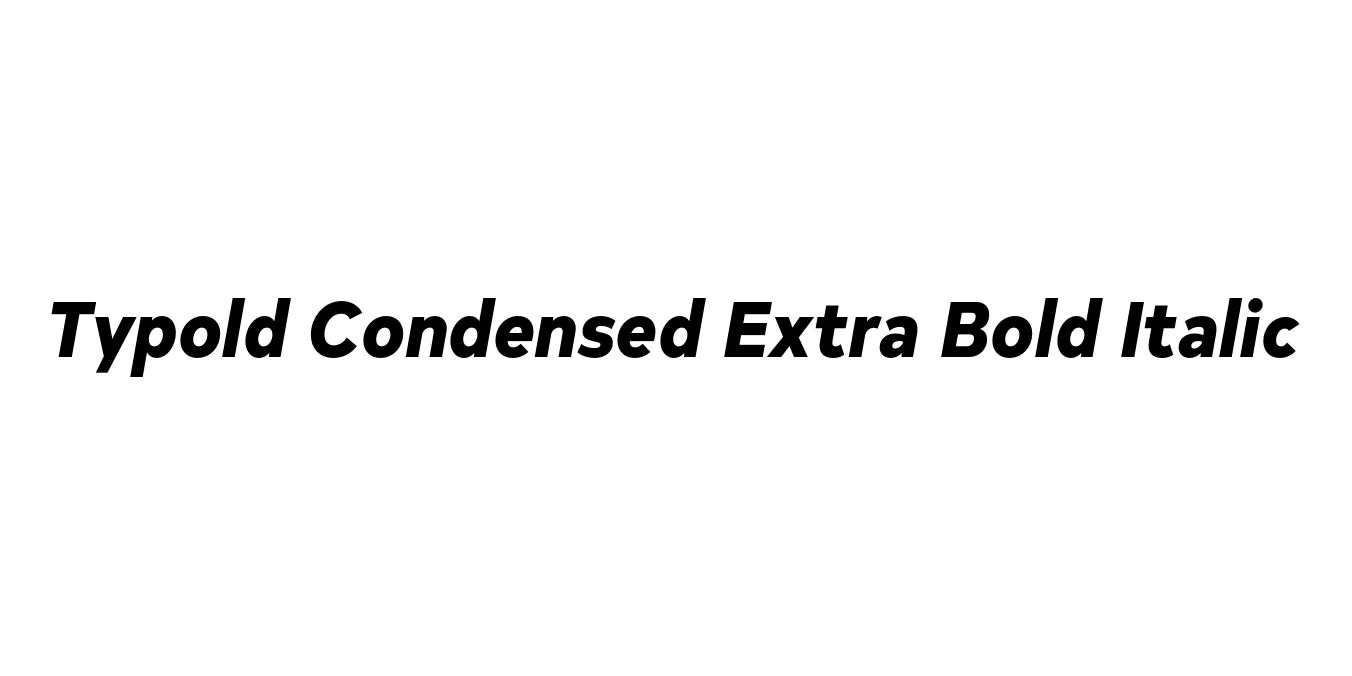
Typold Condensed Extra Bold Italic
Designed by Jonathan Hill
Typold Condensed Extra Bold Italic is a sophisticated evolution of the geometric sans serif, meticulously crafted by designer Jonathan Hill for The Northern Block. This specific variant is engineered to provide maximum visual impact within a narrow horizontal footprint, utilizing mathematical precision to balance its heavy weight with streamlined proportions. It represents a modern approach to display typography, focusing on clarity and a high-energy aesthetic.
The typeface excels in environments requiring a sense of motion and urgency, thanks to its dynamic italic slant and robust structure. With its large x-height and refined terminals, it maintains excellent legibility even in demanding layouts. This font is a versatile tool for designers looking to create authoritative headers, powerful branding, and modern editorial compositions that demand the viewer's immediate attention.
Typold Condensed Extra Bold Italic Best Uses
High-impact titles where horizontal space is at a premium.
Conveying speed, power, and modern athleticism in logos.
Creating bold, eye-catching visual hierarchies in print media.
Punchy call-to-action text for mobile and web banners.